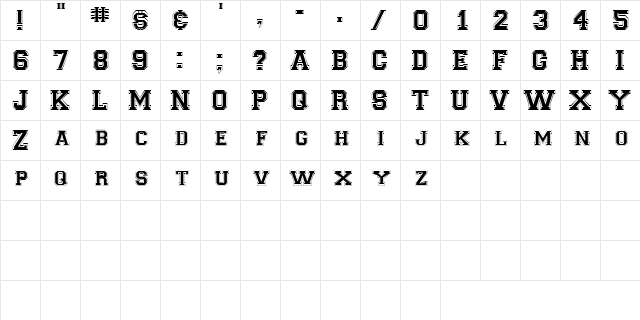
LetterSweaterOutlineSCapsSSK Regular Font Preview
LetterSweaterOutlineSCapsSSK Regular
Design Context for LetterSweaterOutlineSCapsSSK Typeface
LetterSweaterOutlineSCapsSSK brings ornamental detail and strong personality to headlines and identities, where visual impact matters more than quiet functionality.
Font Pairing: Pair with a clean neutral sans-serif for body copy to let LetterSweaterOutlineSCapsSSK's character lead without overwhelming the composition.
Pro Tip: Treat LetterSweaterOutlineSCapsSSK as the centrepiece of your typographic hierarchy. One strong heading set in a decorative face can carry an entire layout.